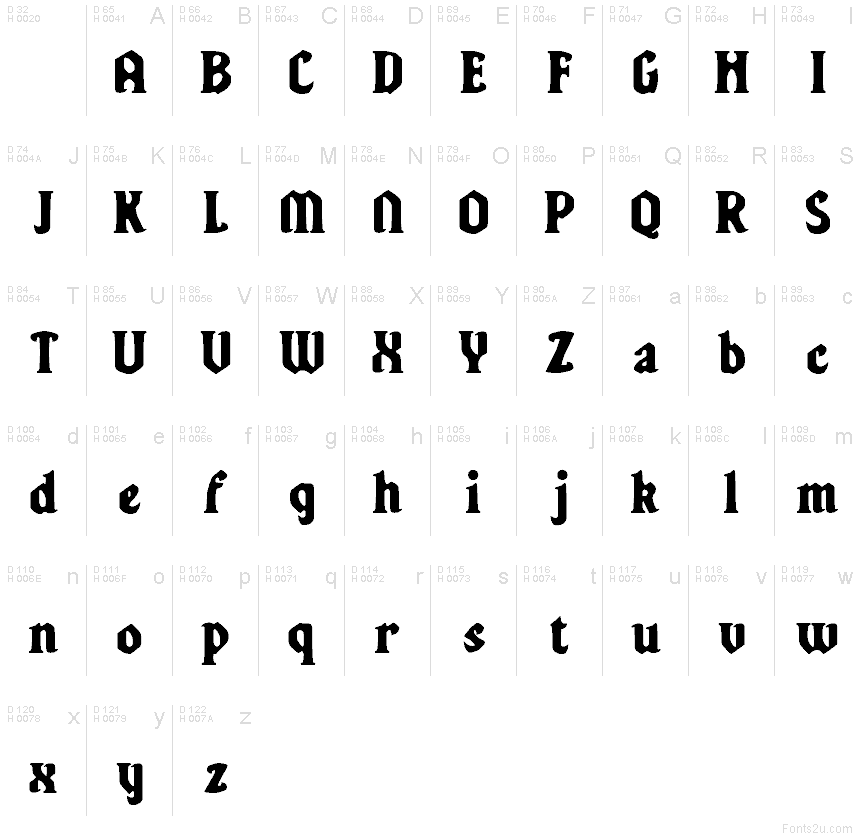
CS Hecate Drawn font by Craft Supply Co. is a free bold medieval gothic display font. Part of the CS Hecate family, it trades polished blackletter for a hand-inked feel—chunky strokes, chiseled serifs, and slightly ragged edges that look lifted from a weathered grimoire. The wide counters and sturdy rhythm keep it readable while the uneven texture adds a smoky, ritual vibe.
Using CS Hecate Drawn, headlines grip instantly—think horror posters, occult zines, fantasy book covers, metal band merch, Halloween packaging, brewery labels, and indie game titles. The weight lands with authority at large sizes, but it scales down surprisingly clean thanks to its open forms. Pair it with a clean geometric sans to let this free font carry the drama without crowding the page.